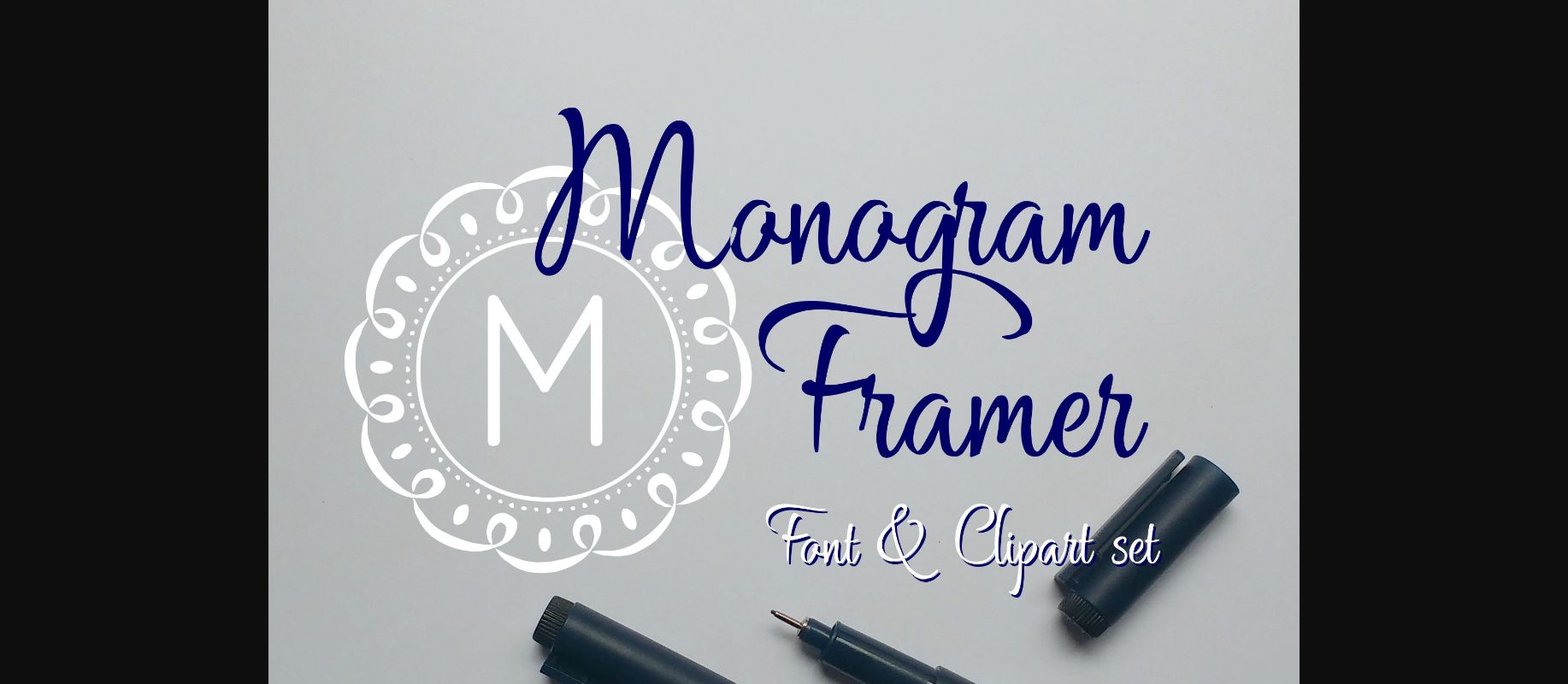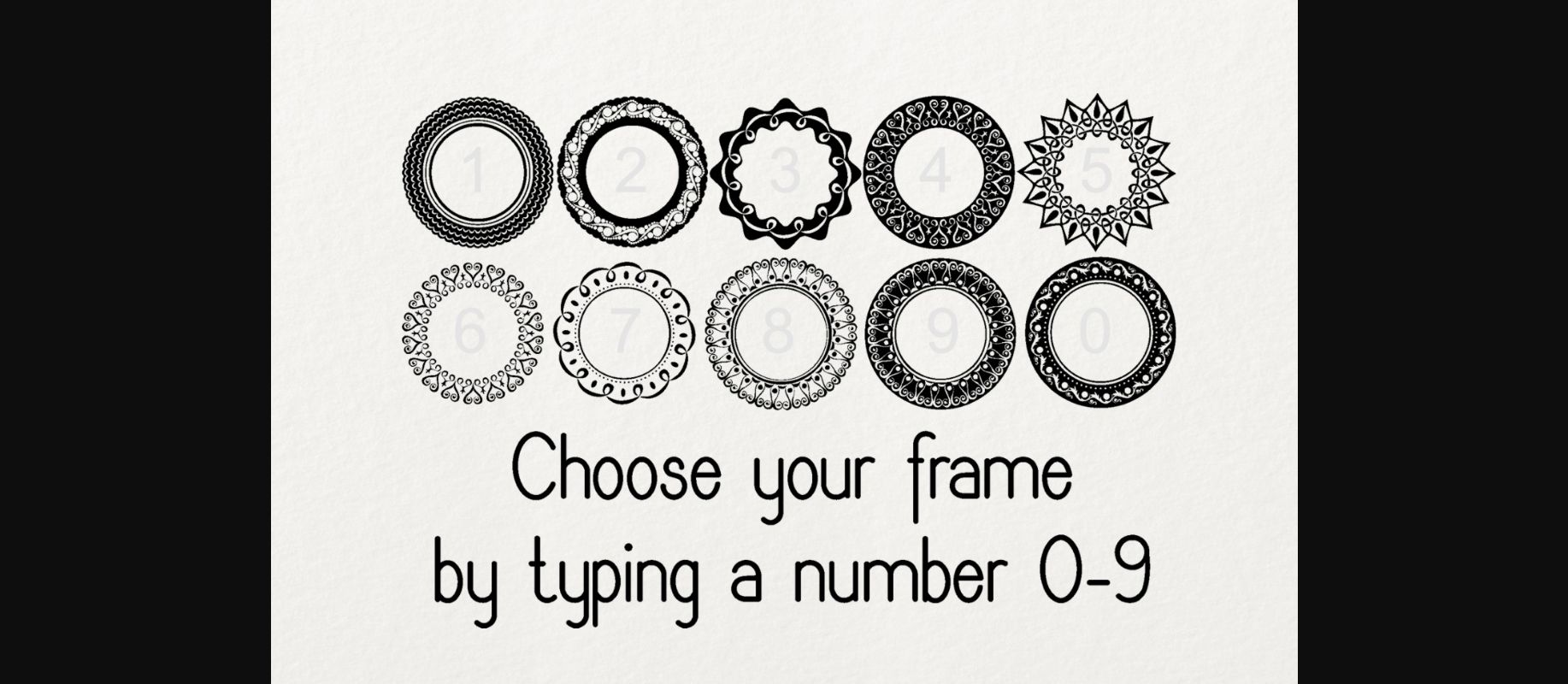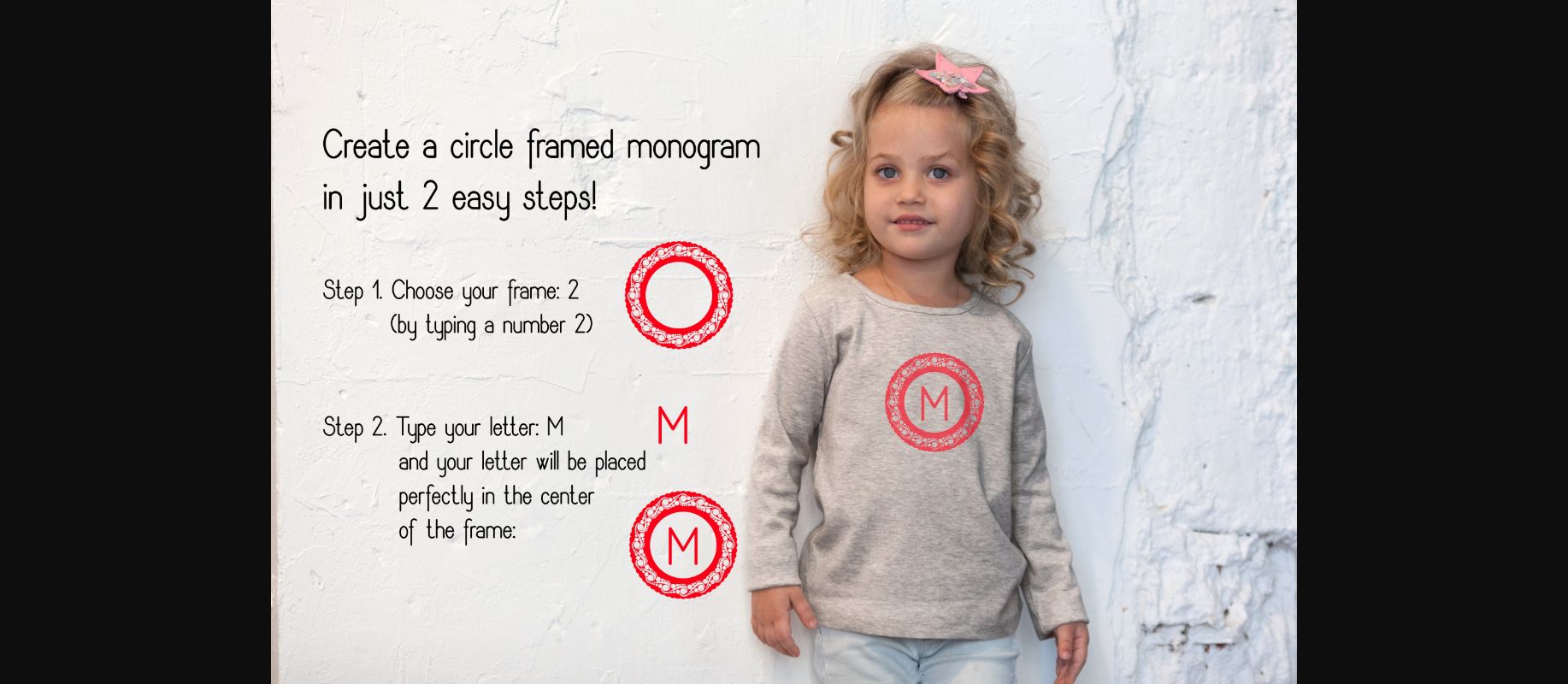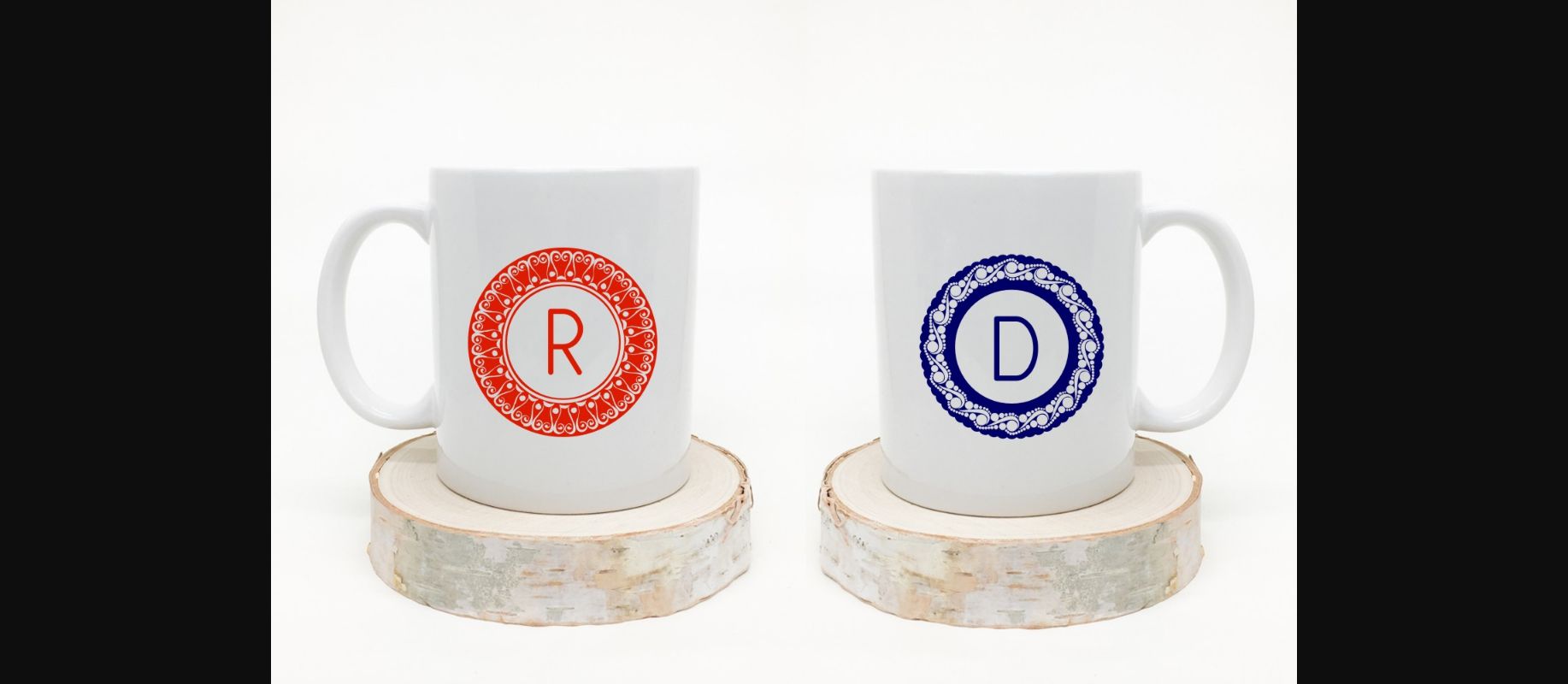
Monogram Framer Font
Monogram Framer Font with bonus circle frame cliparts
With this font you’ll be able to create a circle framed monogram in just 2 easy steps!
Step 1 – Type a number (choose a number 0-9 to select a frame)
Step 2 – Type your letter (without space)
and your letter will be placed perfectly in the center of the frame.
An other way to create a unique monogram: open an individual frame clipart, and place your letter in the center, by using any font you like.